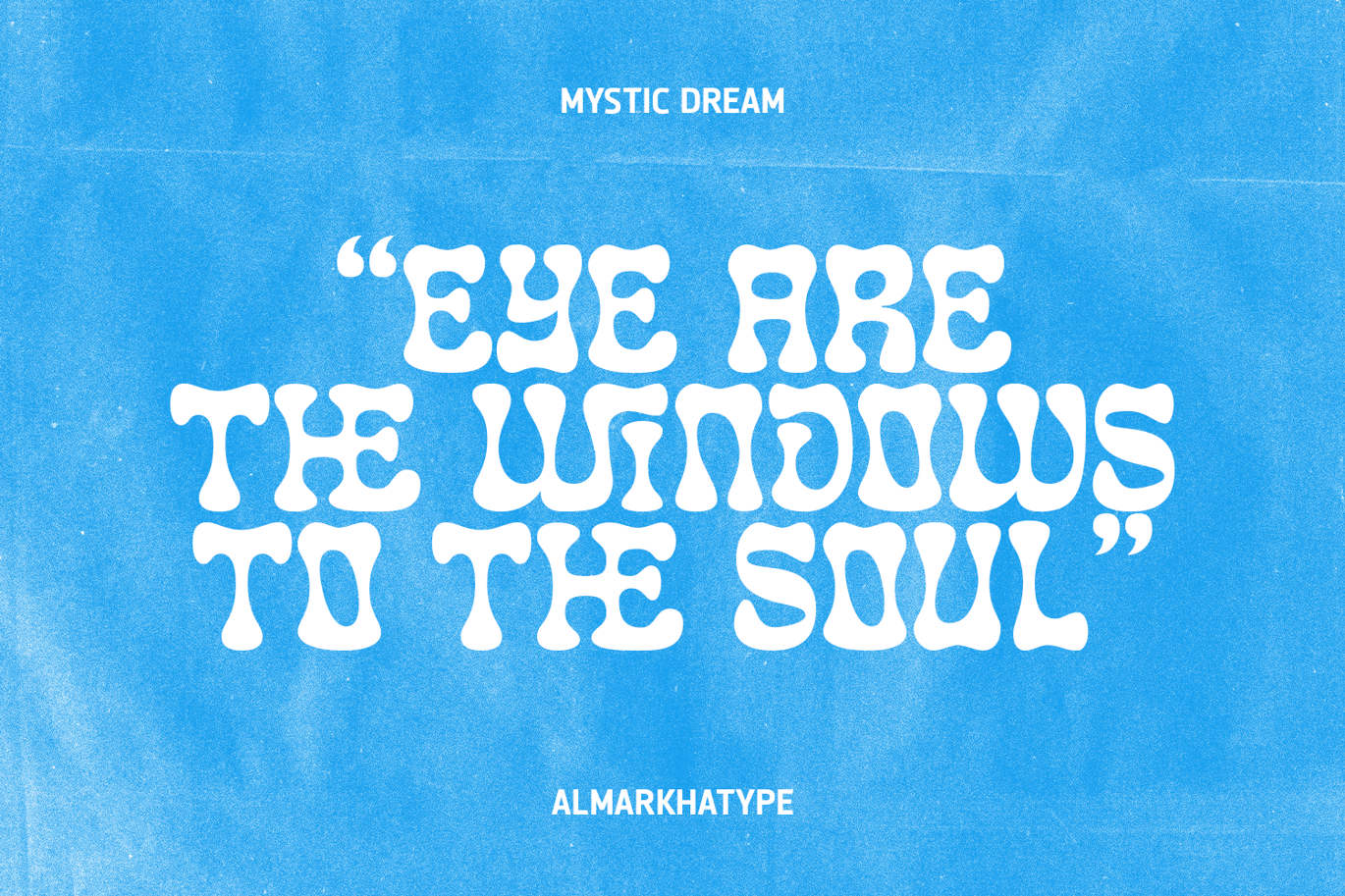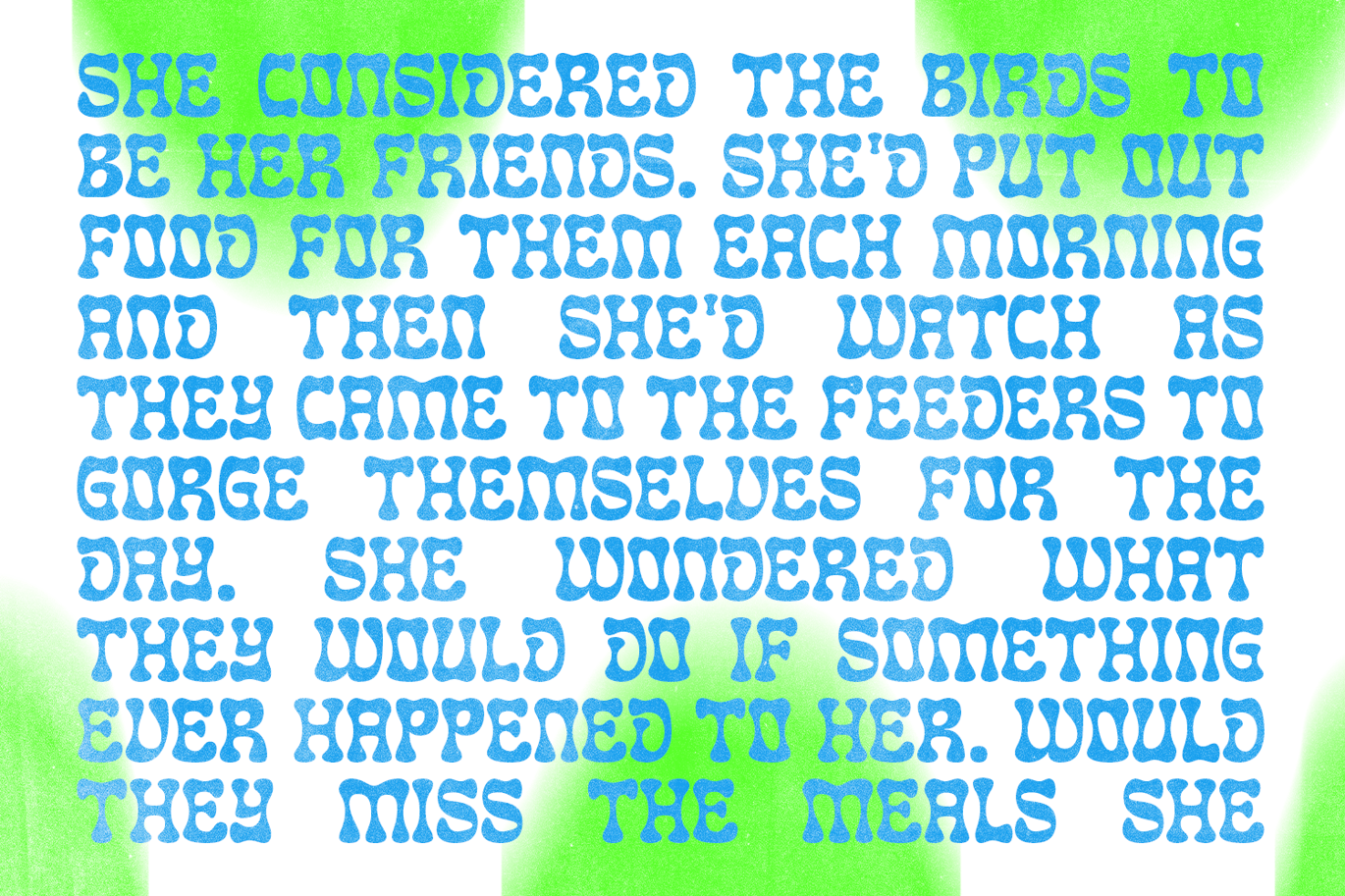
Mystic Dream – Retro Funky Font
Mystic Dream – Retro Funky Font is a versatile typeface ideal for various projects, including logos, branding, posters, blog headers, advertisements. The free version includes a full set of uppercase and lowercase letters, available in OTF format.